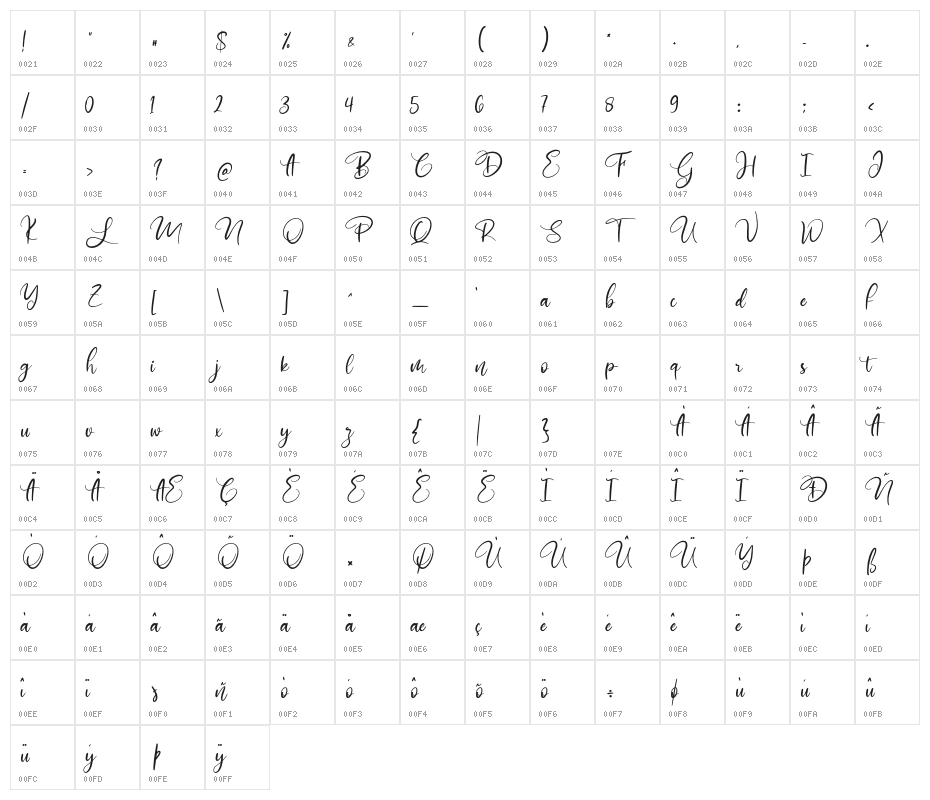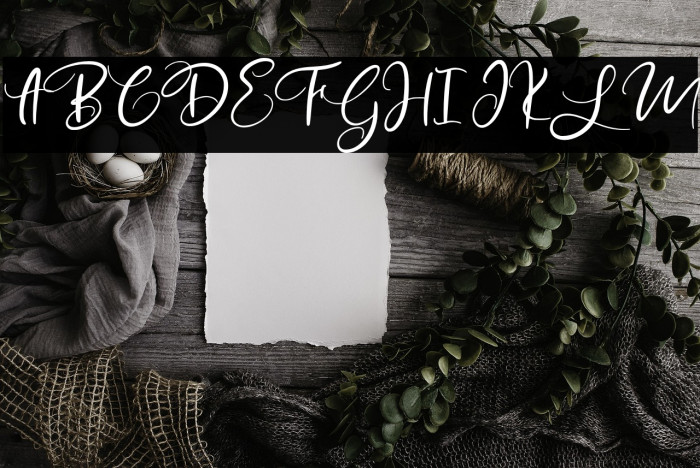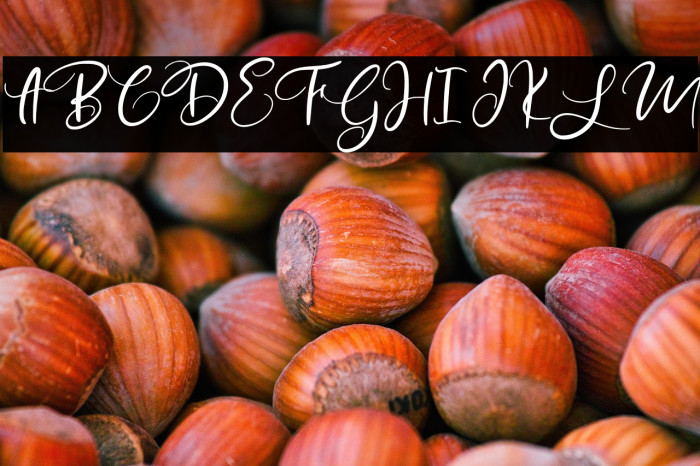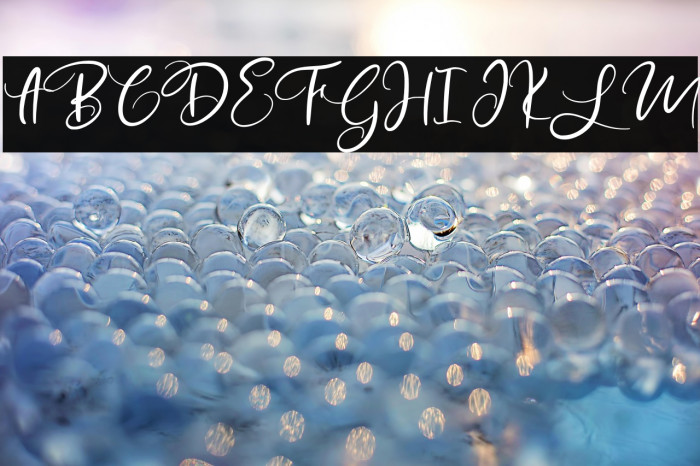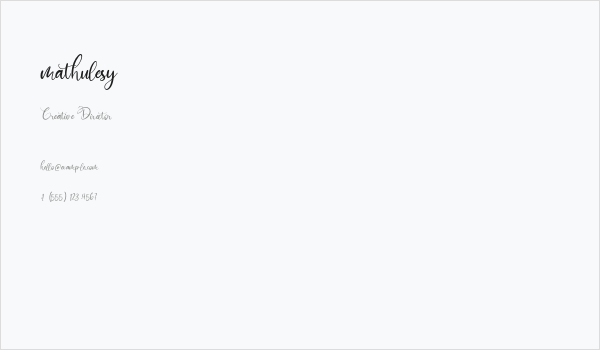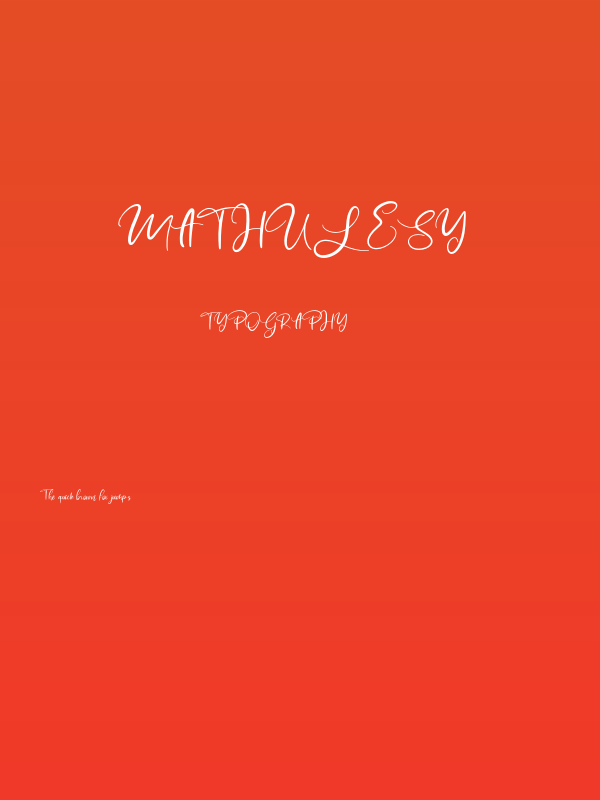
mathulesy Font
mathulesy Description
This elegant script font features flowing, cursive letterforms with a sophisticated flair. The uppercase letters are ornate and decorative, with intricate loops and swirls that add a touch of elegance. The lowercase letters maintain a smooth and connected style, enhancing readability while retaining an artistic quality. Numbers and special characters are designed with the same attention to detail, making them suitable for a variety of uses. The font's overall appearance is both graceful and stylish, making it ideal for projects that require a touch of class and sophistication.
| Categories | Script |
| Overall Style | Elegant, Decorative |
| Use Case | Logos, Invitations, Decorative text |
| Proposed Projects | Ideal for wedding invitations, greeting cards, branding, and elegant logos. |